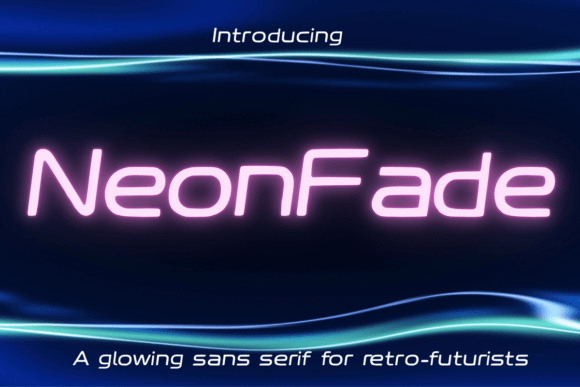
Introducing NeonFade Font: The Ultimate Futuristic Display Font
In the world of digital design, fonts play a crucial role in capturing the attention of audiences and conveying messages effectively. With the rise of digital posters, YouTube thumbnails, synthwave visuals, vaporwave edits, and electronic music branding, the demand for unique and eye-catching fonts has increased. This is where NeonFade Font comes into play – a futuristic sans serif display font that is taking the design world by storm.
What is NeonFade Font?
NeonFade is a futuristic sans serif display font that features glowing edges and soft gradient-inspired strokes. Its bold readability and high-impact style make it perfect for headlines and creative titles. The font’s unique design is inspired by the neon lights of the city, giving it a sleek and modern look that is sure to grab attention.
Key Features of NeonFade Font
- Glowing Edges: The font features glowing edges that give it a neon-like effect, making it perfect for digital designs that require a bold and eye-catching look.
- Soft Gradient-Inspired Strokes: The font’s strokes are inspired by soft gradients, giving it a smooth and sleek look that is perfect for designs that require a modern and futuristic feel.
- Bold Readability: The font has a bold readability that makes it perfect for headlines and creative titles. It’s easy to read, even at small sizes, making it versatile for various design applications.
- High-Impact Style: The font’s high-impact style makes it perfect for designs that require a bold and attention-grabbing look.
Use Cases for NeonFade Font
NeonFade Font is perfect for various design applications, including:
- Digital Posters: The font’s bold readability and high-impact style make it perfect for digital posters that require a bold and eye-catching look.
- YouTube Thumbnails: The font’s unique design and glowing edges make it perfect for YouTube thumbnails that require a modern and futuristic feel.
- Synthwave Visuals: The font’s futuristic design and neon-like effect make it perfect for synthwave visuals that require a bold and eye-catching look.
- Vaporwave Edits: The font’s soft gradient-inspired strokes and glowing edges make it perfect for vaporwave edits that require a modern and sleek look.
- Electronic Music Branding: The font’s bold readability and high-impact style make it perfect for electronic music branding that requires a bold and attention-grabbing look.
Benefits of Using NeonFade Font
Using NeonFade Font offers several benefits, including:
- Unique Design: The font’s unique design and glowing edges make it stand out from other fonts, giving your designs a bold and eye-catching look.
- Versatility: The font’s bold readability and high-impact style make it versatile for various design applications, from digital posters to electronic music branding.
- Modern and Futuristic Feel: The font’s soft gradient-inspired strokes and glowing edges give it a modern and futuristic feel that is perfect for designs that require a sleek and modern look.
Tips for Using NeonFade Font
Here are some tips for using NeonFade Font:
- Use it for Headlines: The font’s bold readability and high-impact style make it perfect for headlines and creative titles.
- Experiment with Colors: The font’s glowing edges and soft gradient-inspired strokes make it perfect for experimenting with different colors and gradients.
- Pair it with Other Fonts: The font’s unique design makes it perfect for pairing with other fonts to create a unique and eye-catching look.
NeonFade Font is a futuristic sans serif display font that is perfect for digital designers who require a bold and eye-catching look. Its unique design, glowing edges, and soft gradient-inspired strokes make it perfect for various design applications, from digital posters to electronic music branding. With its bold readability and high-impact style, it’s ideal for headlines and creative titles. Whether you’re a graphic designer, a digital artist, or a branding expert, NeonFade Font is a must-have font that will take your designs to the next level.
- What is NeonFade Font? NeonFade Font is a futuristic sans serif display font that features glowing edges and soft gradient-inspired strokes.
- What is NeonFade Font used for? NeonFade Font is perfect for digital posters, YouTube thumbnails, synthwave visuals, vaporwave edits, and electronic music branding.
- Is NeonFade Font easy to read? Yes, NeonFade Font has a bold readability that makes it easy to read, even at small sizes.